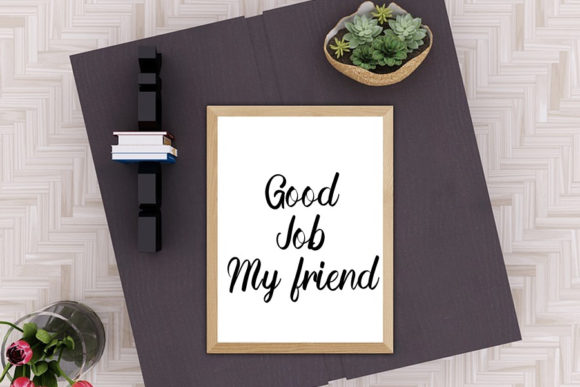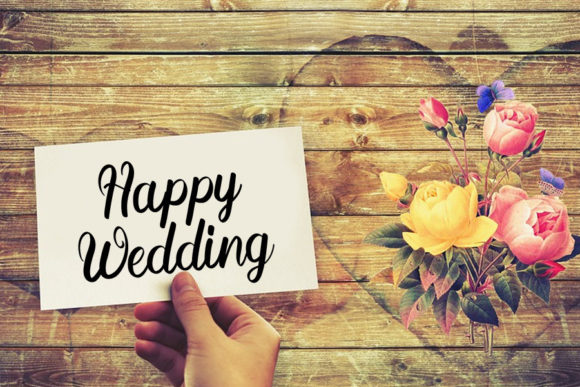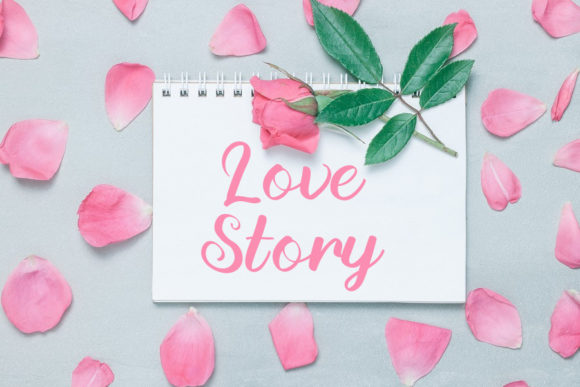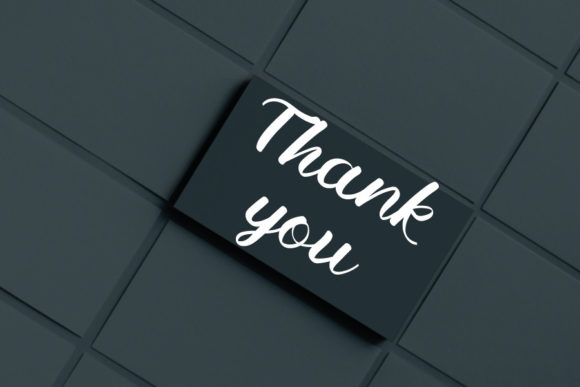
Have you ever sat in front of your computer, staring at a blank canvas, waiting for inspiration to strike? For designers, this moment is all too familiar. But what if the perfect font could spark that creative fire and set your project ablaze? Enter the Hello Mother Font, a beautiful and versatile font that’s perfect for a wide range of design purposes.
This font is designed to be simple yet unique, making it a valuable addition to any designer’s toolkit. From YouTube banners to wedding invitations, the Hello Mother Font is sure to bring a touch of elegance and sophistication to your designs. By using this font, you can take your business to the next level and make a lasting impression on your audience.
- Unique Characteristics: The font features a unique blend of modern and traditional elements, making it perfect for designers looking for a distinctive look.
Hello Mother Font Review
I’ve had the chance to work with the Hello Mother Font, and I must say it’s a unique and interesting addition to any design project.
- Its modern, playful feel makes it perfect for modern branding, websites, and applications.
- The font’s versatility allows it to be used in various contexts, from headings to body text.
- Its OpenType features enable advanced typographic effects, adding an extra layer of creativity to designs.
- The font may not be suitable for formal or traditional designs due to its playful nature.
- The number of styles available is limited, which might restrict its use in complex projects.
- The font’s readability in small sizes can be a concern, making it less ideal for tiny text.
Overall, the Hello Mother Font is a great choice for designers looking to add a touch of modernity and playfulness to their work. However, it may not be the best fit for every project, and designers should consider its limitations before making a final decision.
Tip: Use Hello Mother Font for titles and headings to add a touch of elegance to your design.
Tip: Use Hello Mother Font for text overlays or captions to add a vintage touch to your design.
Tip: Use Hello Mother Font for headings and titles to add a touch of sophistication to your presentation.
Hello Mother Font is ideal for:
– Vintage-inspired designs
– Baby and nursery designs
– Retro-style advertisements
Remember to pair Hello Mother Font with other fonts that complement its unique style to create a visually appealing design.